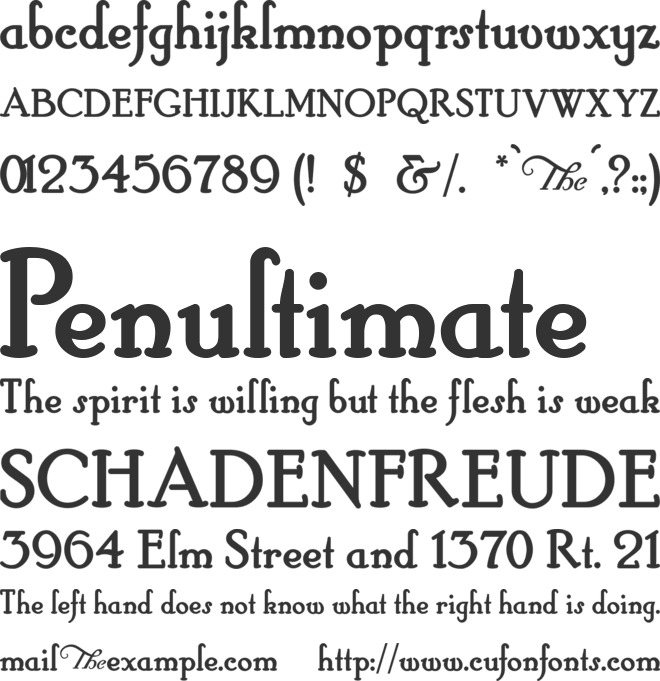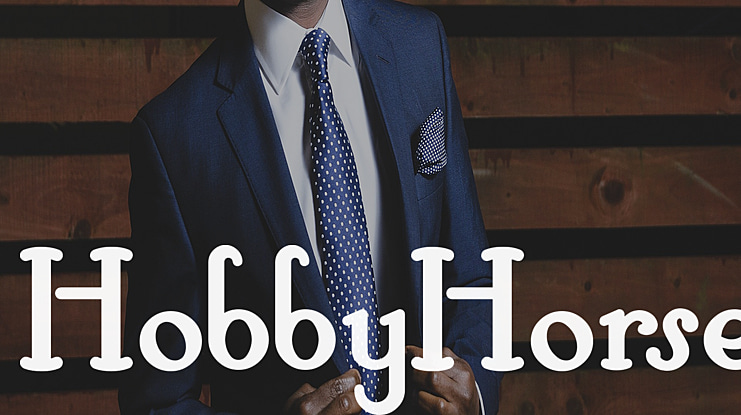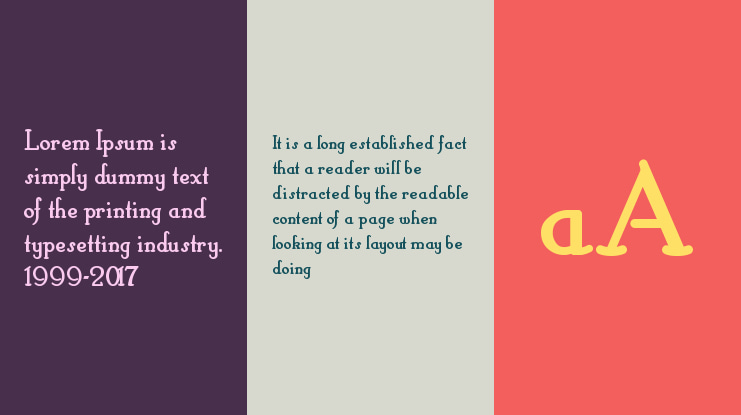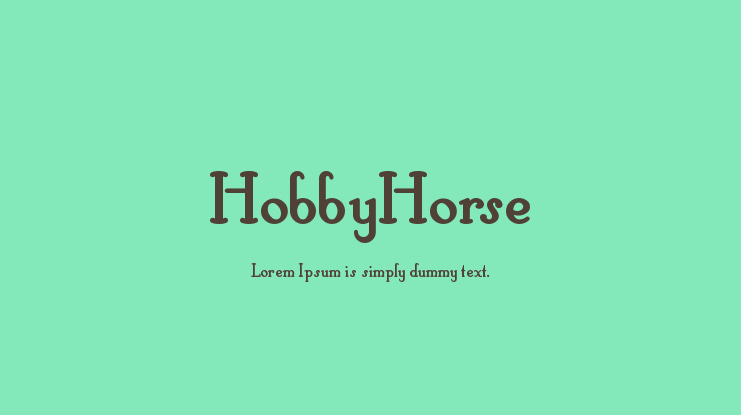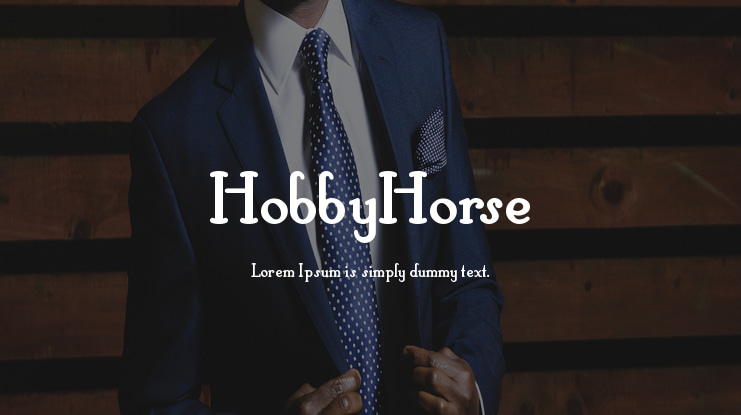
HobbyHorse Font
The second in a series of “Storybook Fonts,” reminescent of the typefaces found in children’s books around the turn of the twentieth century. This quirky face combines an adaptation of the uppercase letterforms of Poor Richard with an adaptation of the lowercase letterforms of Nuptial Script, backslanted 22°. A spritely, rounded serif has been added to the letterforms, so they rock.